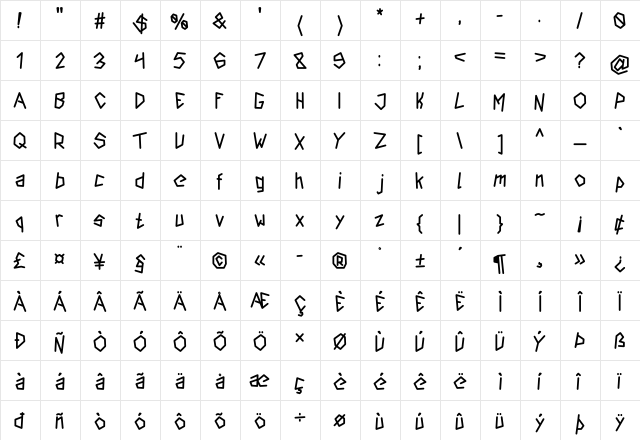
Insurgence Regular
Foundry Kong Font
Design Context for Insurgence Typeface
Insurgence is a composed and adaptable typeface that performs quietly and consistently across a wide range of design contexts.